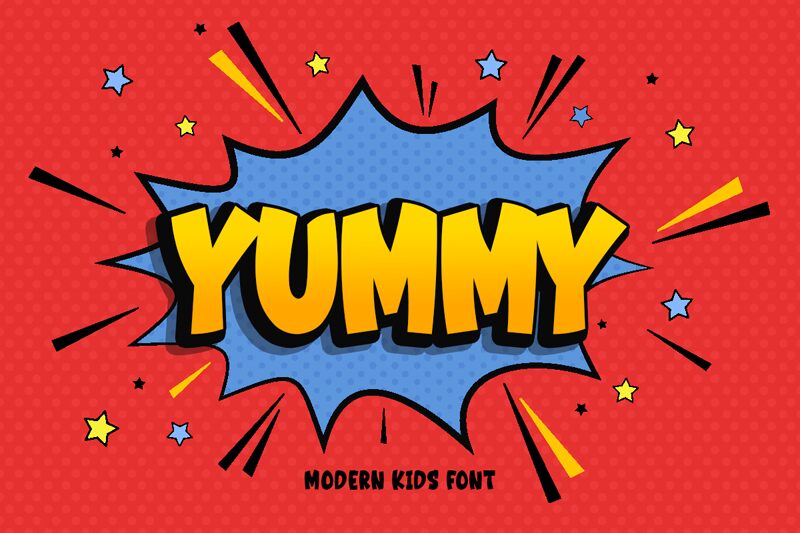
Yummy
Yummy, designed by Kong Font, is a bold display font that brims with playful energy and a comic style flair. Its chunky letters and exaggerated forms radiate an infectious cheerfulness that can instantly elevate any creative project. The robust weight of Yummy makes it not only eye-catching but also incredibly versatile, ideal for everything from captivating headlines to standout logos.
The aesthetic appeal of Yummy lies in its balance between readability and personality. Each character is crafted to convey lighthearted fun while maintaining clarity. This font’s quirky sensibility makes it perfect for designs targeting youthful audiences or any brand looking to inject a sense of whimsy into their visual identity.
Whether you're designing for print, digital media, or animation, Yummy is equipped to deliver an impactful message with both charm and boldness. It's this unique blend of style and substance that positions Yummy as the go-to typeface for designers seeking to make a delightful statement.